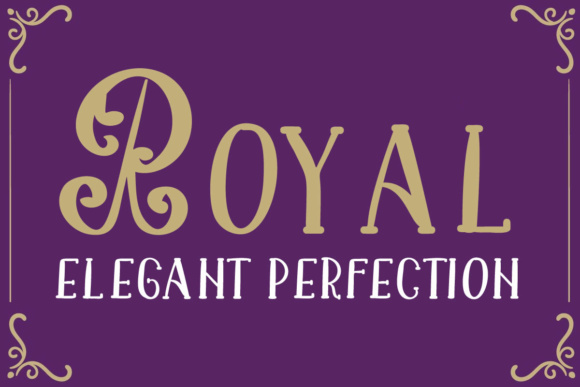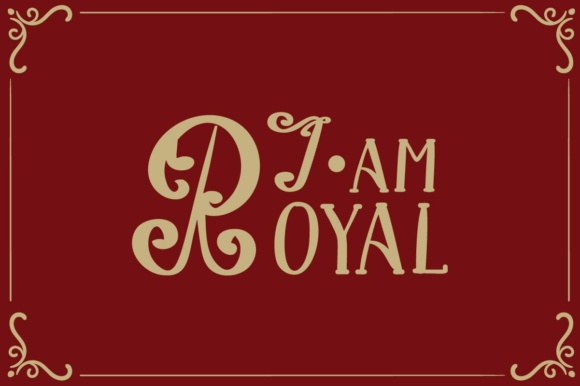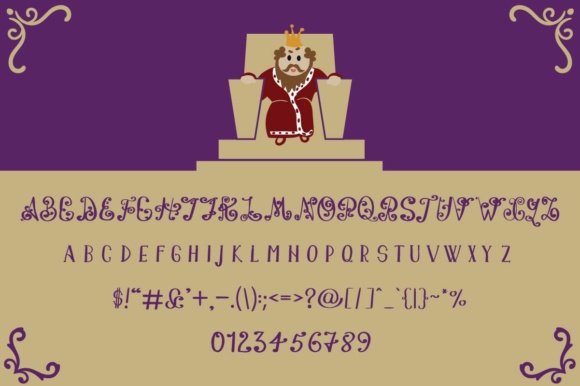
Royal Elegant Font
About Royal Elegant Font
Royal is a decorative script featuring stylish calligraphy-style letters.
The Royal is a hand-lettered typeface, featuring detailed decorative capitals.